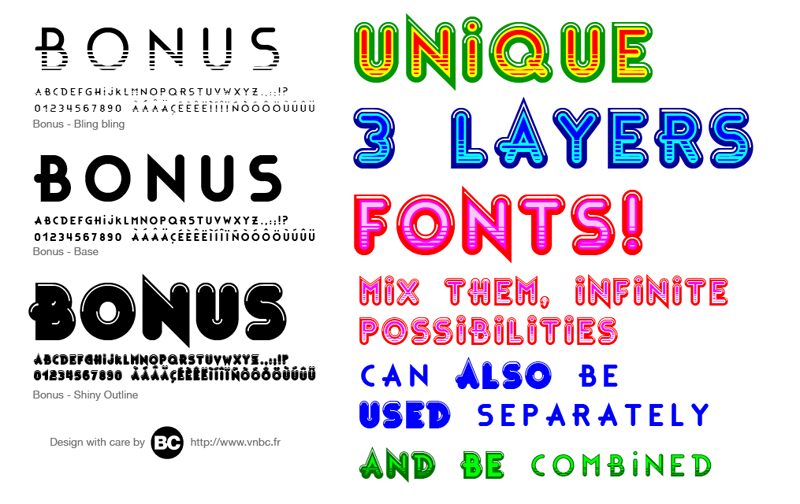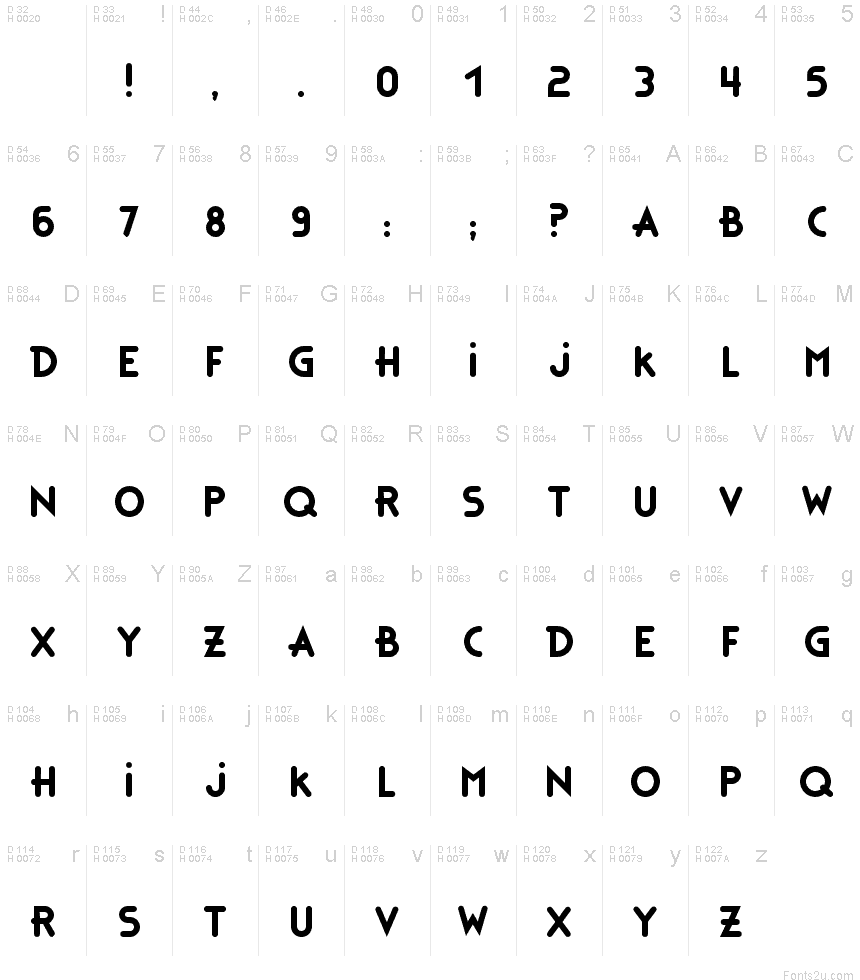
Bonus Base
Bonus - BC
This font is a unique 3 layers font!
It comes in three flavors :
- Bonus Bling Bling
- Bonus Base
- Bonus Shiny Outline
(This is also the basic layer order)
Mix & combine them, in infinite ways, and color them to get the desired effect.
You can use also each font one alone, Base and Shiny Outline will work the best.